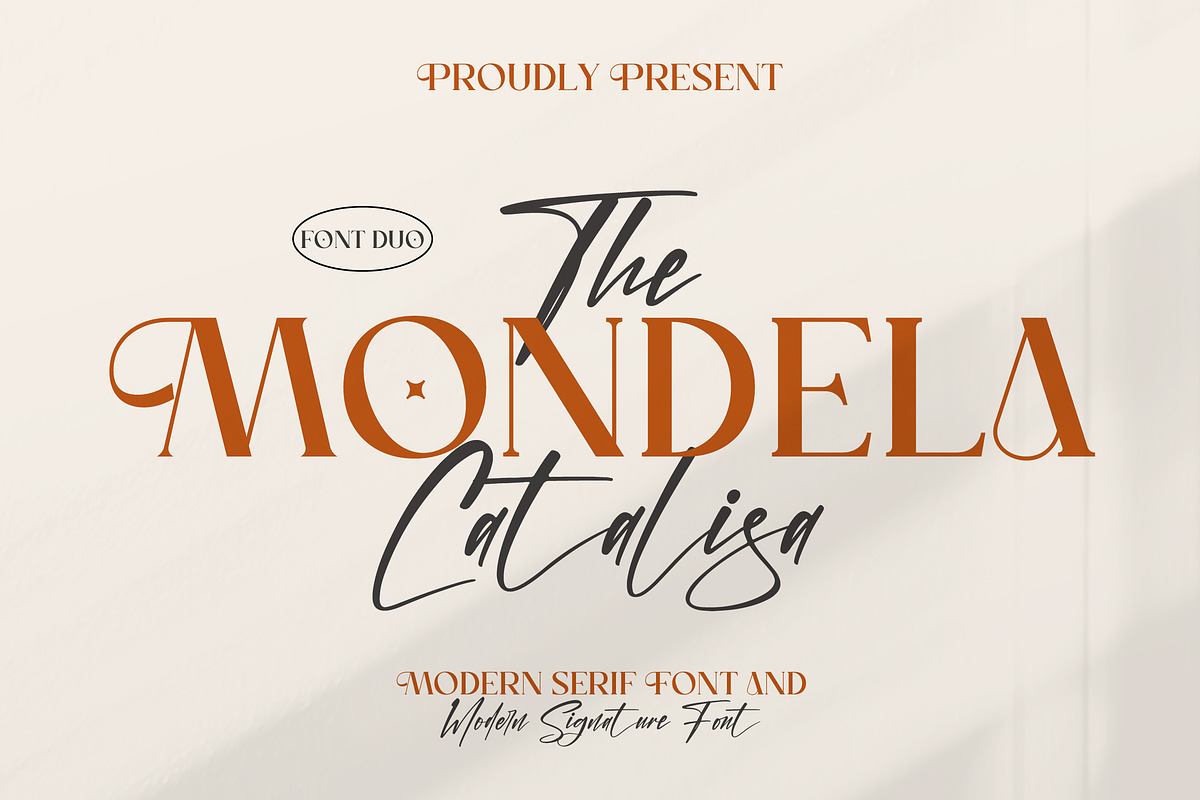
The Mondela Catalisa Font Duo Free Download
Please note, you must purchase this font for commercial use. However, you can easily download The Mondela Catalisa Font Duo Free Download for personal use and testing purposes. The Mondela Catalisa Font Duo is an elegant and versatile font pair that combines a sophisticated script with a modern serif typeface. Perfect for a wide range of design projects, from branding and logos to invitations and promotional materials, this font duo offers a perfect balance of class and readability. Whether you're designing a luxury brand identity, a wedding invitation, or a chic social media graphic, The Mondela Catalisa Font Duo Free Download will elevate your design with its timeless charm. Download The Mondela Catalisa Font Duo Free Download today and explore its potential before opting for a commercial license.